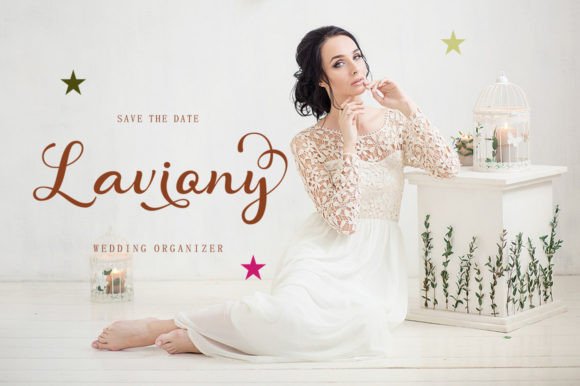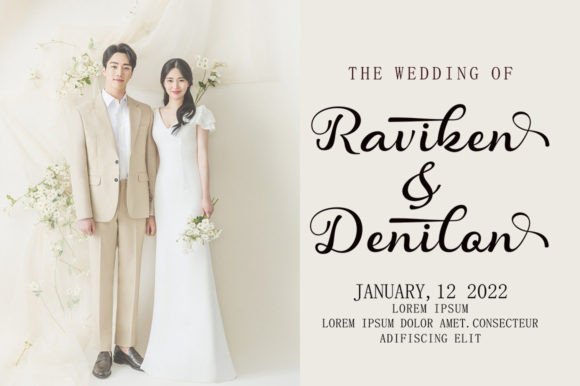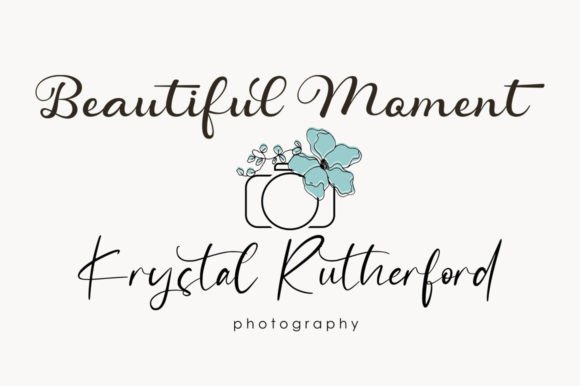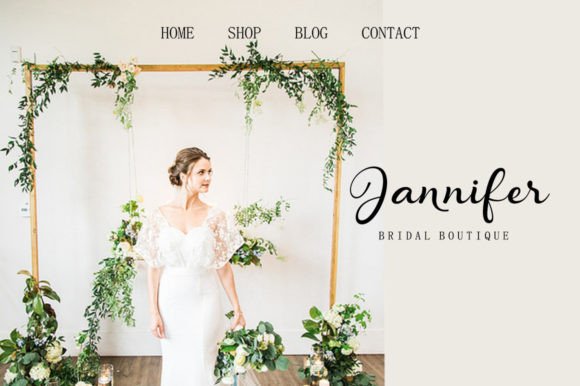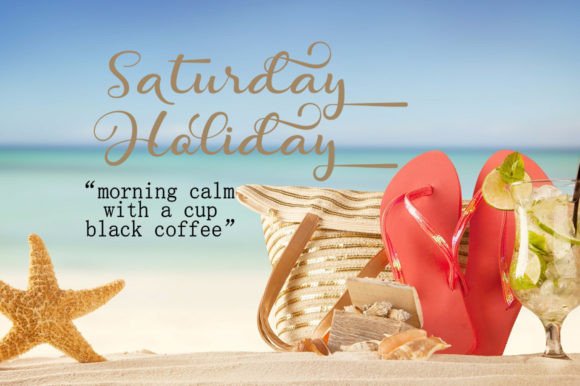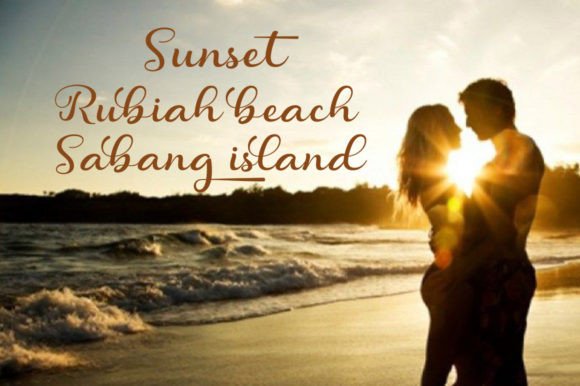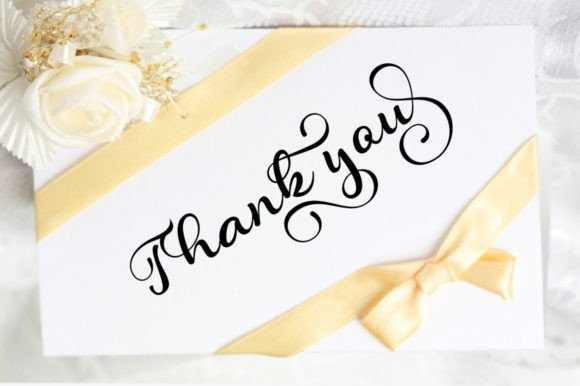
Bella Qalbiya Font
About Bella Qalbiya Font
“Bella Qalbiya is a clean, beautiful, and modern handwritten font that stands out as a versatile and stylish addition to your font library. Regardless of the topic or project, this font proves to be an incredible asset, showcasing the potential to elevate any creation.
The allure of Bella Qalbiya lies in its clean and modern handwritten style. The font’s elegant and well-crafted design makes it suitable for a wide range of creative applications. Whether you’re working on branding, invitations, signage, or other projects, Bella Qalbiya adds a touch of sophistication to your creations.
Bella Qalbiya Script being PUA encoded is a noteworthy feature, allowing easy access to all the glyphs and swashes. This enhances the font’s versatility, enabling you to effortlessly incorporate unique characters and decorative elements into your designs.
Consider using Bella Qalbiya to bring a sense of modernity and elegance to your projects. Whether it’s logos, branding materials, or any design that requires a clean and stylish handwritten font, Bella Qalbiya is ready to make a statement.
In summary, Bella Qalbiya is more than just a font; it’s a design asset that combines cleanliness, beauty, and modernity. With its PUA encoding, accessing its diverse glyphs and swashes is a breeze, offering you the flexibility to create custom and visually appealing designs with ease. Integrate Bella Qalbiya into your creative toolkit and let its modern elegance enhance your typographic expressions.”